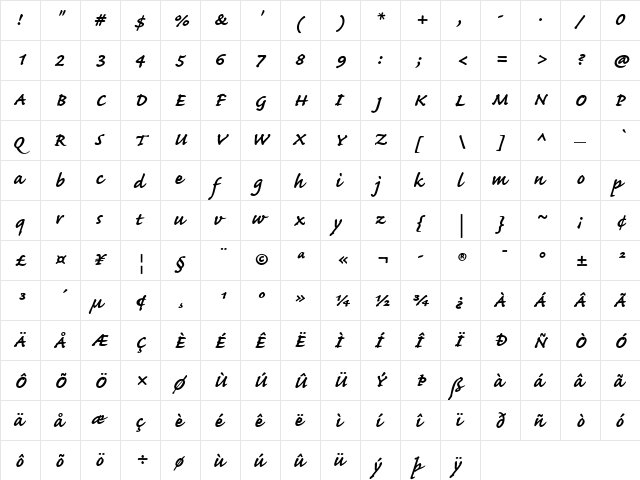
CaflischScript Regular Bold Italic Font Preview
CaflischScript Regular Bold Italic
CaflischScript Regular Bold Italic Font Details
Design Context for CaflischScript Regular Typeface
CaflischScript Regular brings a calligraphic fluidity to the page — its connecting strokes and expressive curves give it an unmistakably human quality. Its bold stroke weight gives it real presence on the page.
Font Pairing: Combine CaflischScript Regular with a simple geometric sans for maximum contrast — the tension between flowing curves and clean structure is a classic typographic pairing.
Pro Tip: Use CaflischScript Regular for short runs of text — names, titles, or taglines. Extended body copy in script faces tires the eye quickly.